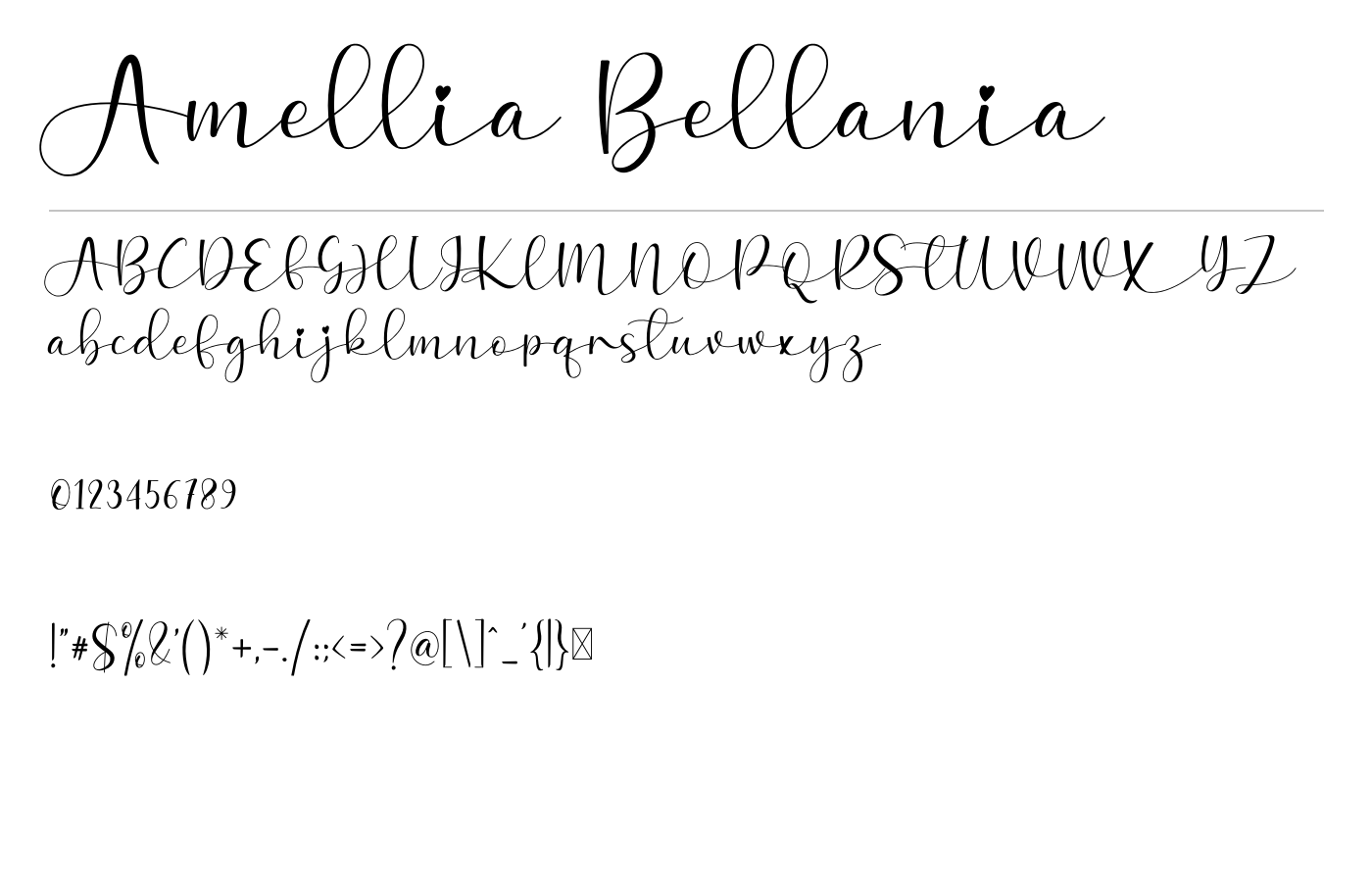
Amellia Bellania is an elegant, cursive script font with delicate, flowing strokes and charming heart-shaped details that add a playful yet sophisticated touch. Its light, airy style with tall, slender letterforms makes it perfect for wedding invitations, branding, and feminine design projects where a graceful and romantic feel is desired. This font shines in headlines, logos, and decorative text, bringing a personalized and artistic vibe to any creative work.
Amellia Bellania Font